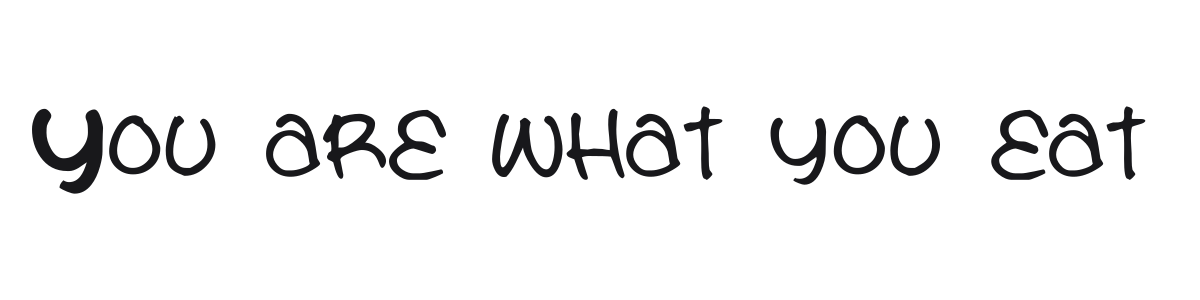
You are what you eat
You are what you eat is a casual handwritten face from Pizzadude with rounded, bouncy letterforms that feel like someone jotting something down with a felt-tip pen in a good mood. The quirky, informal strokes keep it playful without losing legibility, making it a solid pick for headlines, packaging, and branding that needs to feel approachable and fun.